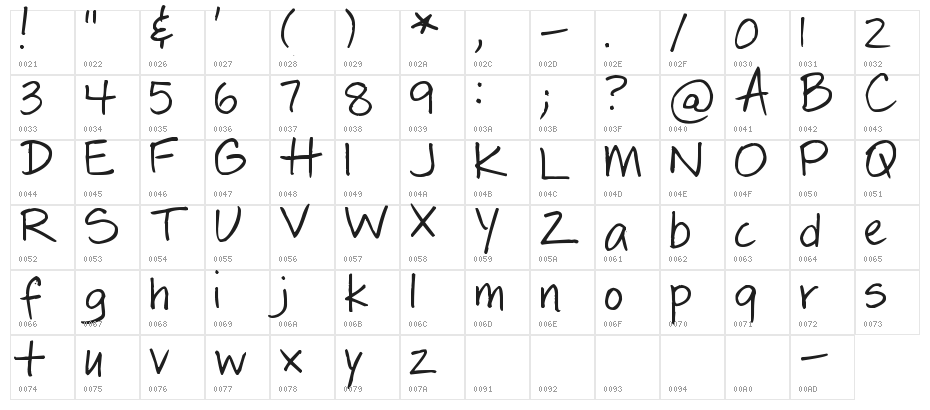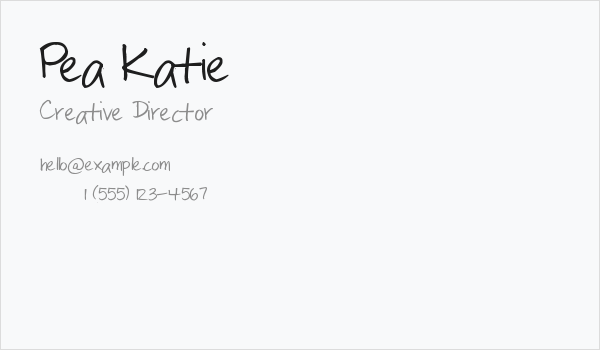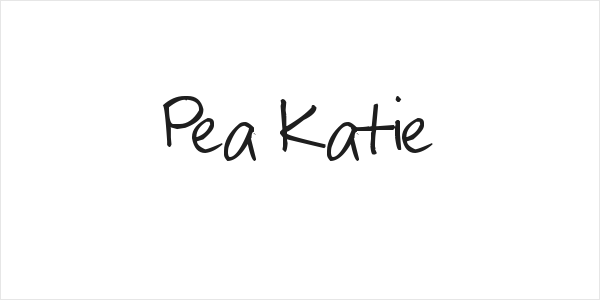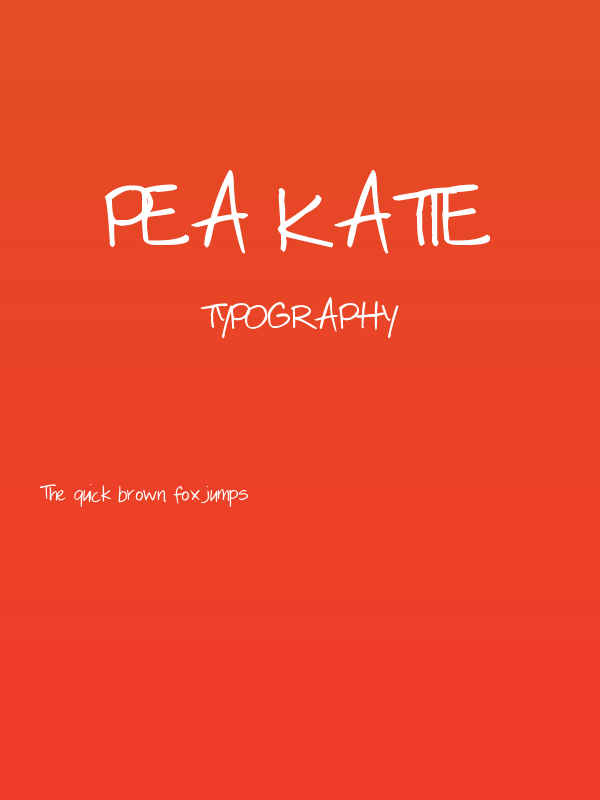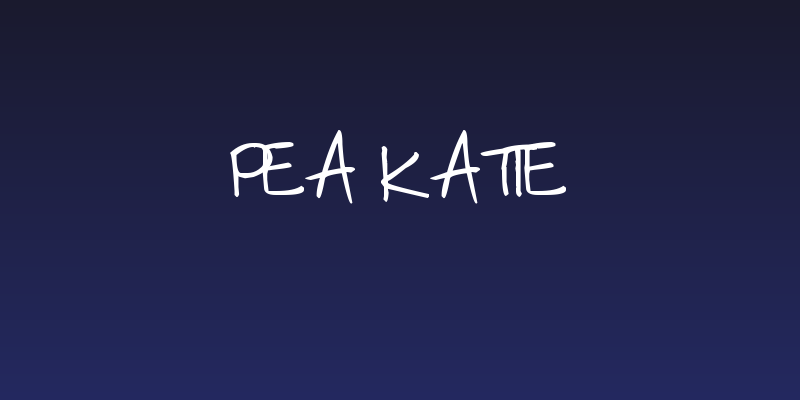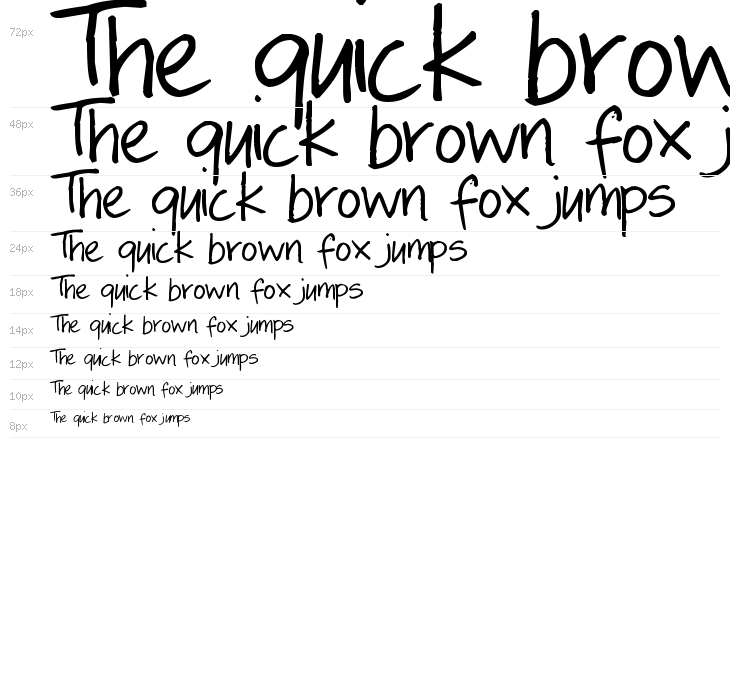
Pea Katie Font
Pea Katie Description
This playful and casual handwritten font features a natural flow with slightly irregular strokes, giving it a personal and informal touch. The characters are well-spaced, maintaining readability while conveying a sense of spontaneity. The uppercase letters are bold and slightly taller than the lowercase, which are rounded and smooth. Numbers and special characters are consistent with the overall style, adding to its versatility. This font is ideal for projects that require a friendly and approachable aesthetic.
| Use Case | Greeting cards, Social media graphics, Informal branding |
| Proposed Projects | Ideal for personal notes, greeting cards, social media graphics, and informal branding projects. |